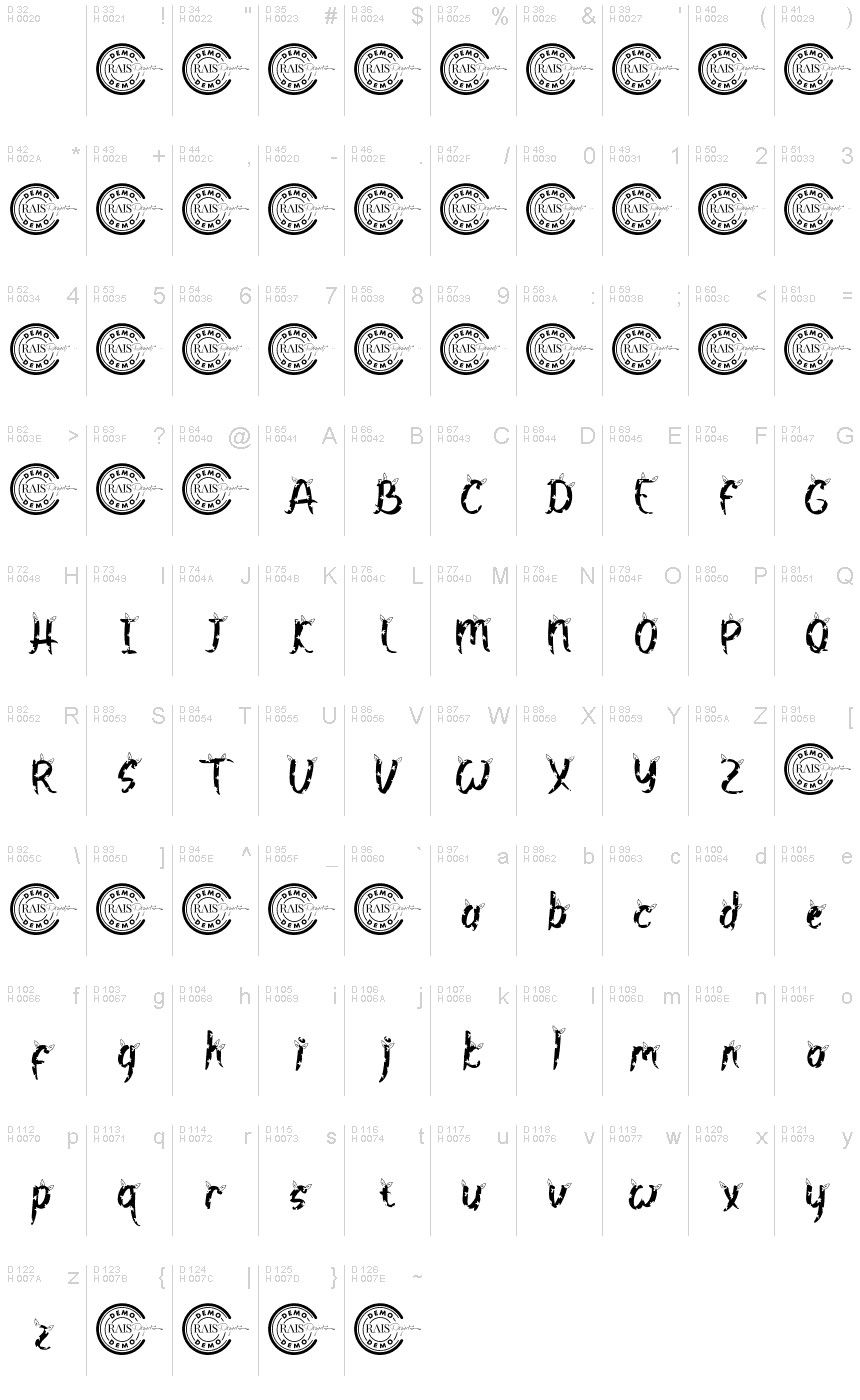
Cow Farm Demo
Cow Farm, a whimsical and charming display font created by RaisProject, adds a touch of playfulness to any project.
With its decorative style and semi-bold weight, this font is perfect for children's books, party invitations, and greeting cards. Its unique design will also make it stand out on product packaging or branding materials for creative businesses.
Let Cow Farm transport you to a world of imagination and joy with its delightful curves and artistic flair.